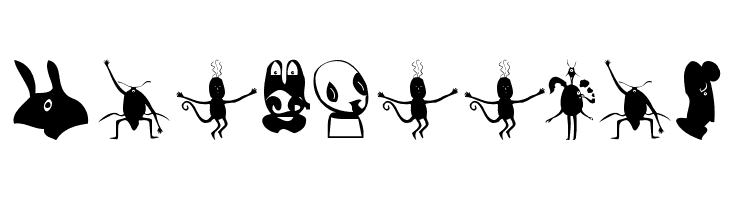
• WebTubbies schriftart
A decorative dingbat font with imaginative cartoon characters.
• WebWideWorld schriftart
Comic-style illustrated font with internet and computer themes.
• WebWoodCuts schriftart
• wec-Bold schriftart
( Carlos Horacio Valera )
A bold, rounded font with a modern and clean aesthetic.
• wec-Light schriftart
( Carlos Horacio Valera )
A modern, rounded font with uniform stroke width and excellent readability.
• WECKER Regular schriftart
• WeComeInPeaceBB schriftart
( Fonts by www.blambot.com )
A bold, alien-inspired decorative font with rounded shapes and a futuristic vibe.
• WeComeInPeaceBB-BoldItalic schriftart
( Fonts by www.blambot.com )
A bold, italicized font with a playful and whimsical design.
• Wedding schriftart
An elegant and flowing script font with graceful curves and a sophisticated style.
• Wedding Card schriftart
A cursive, elegant font with flowing lines and sophisticated flourishes.